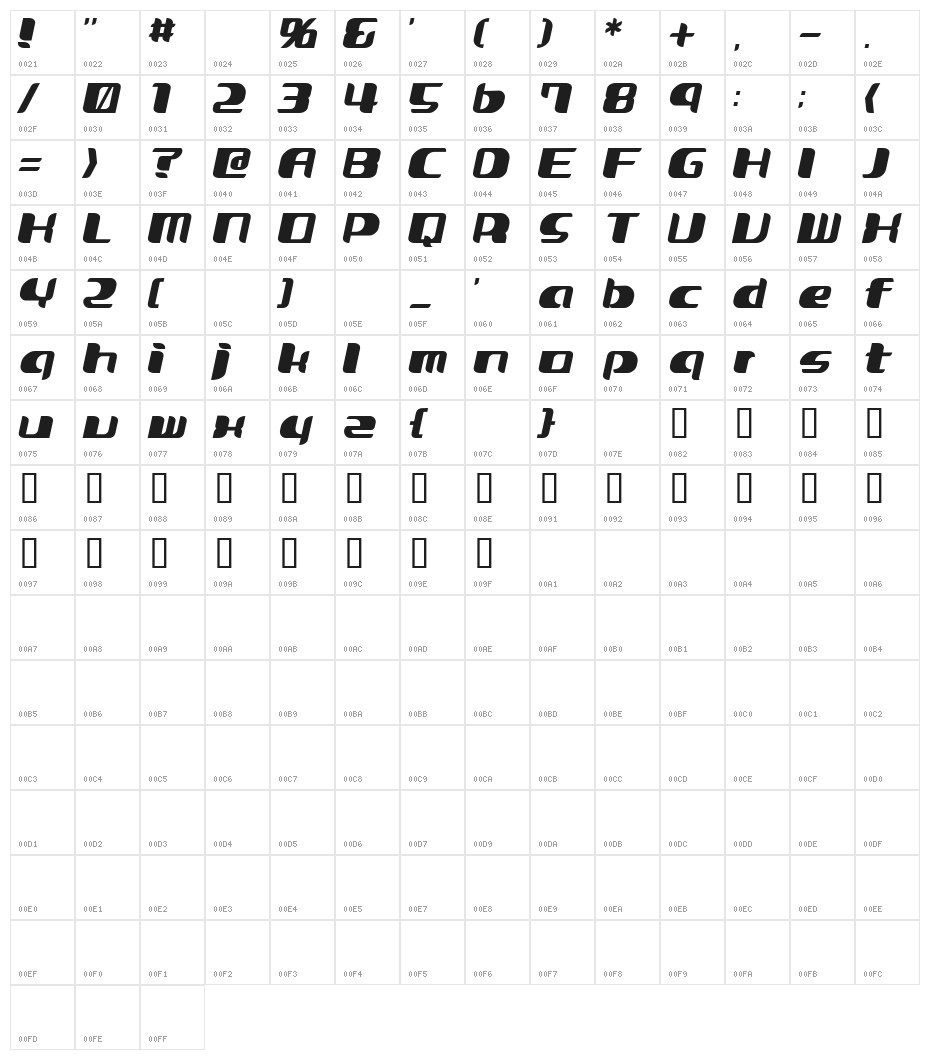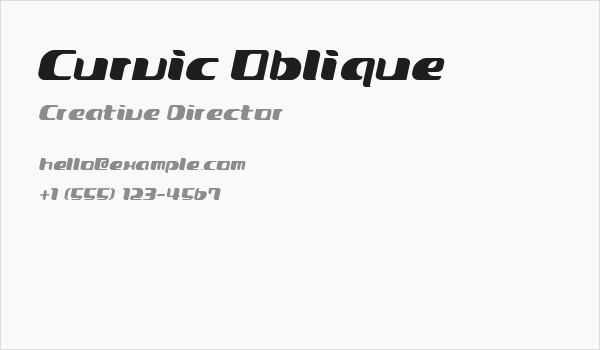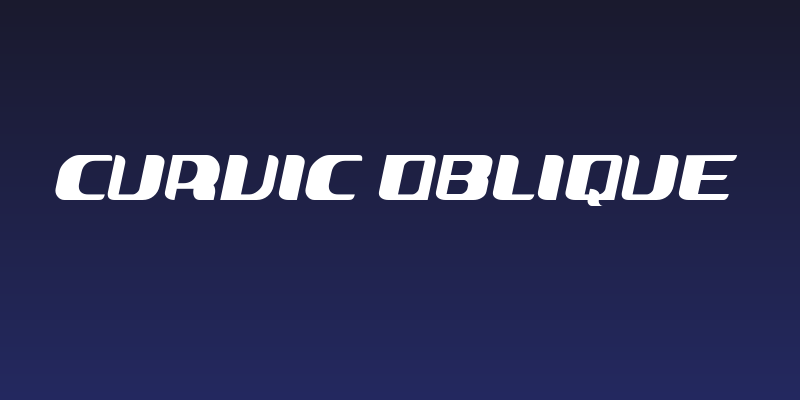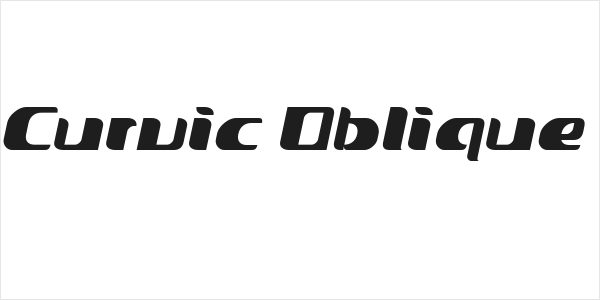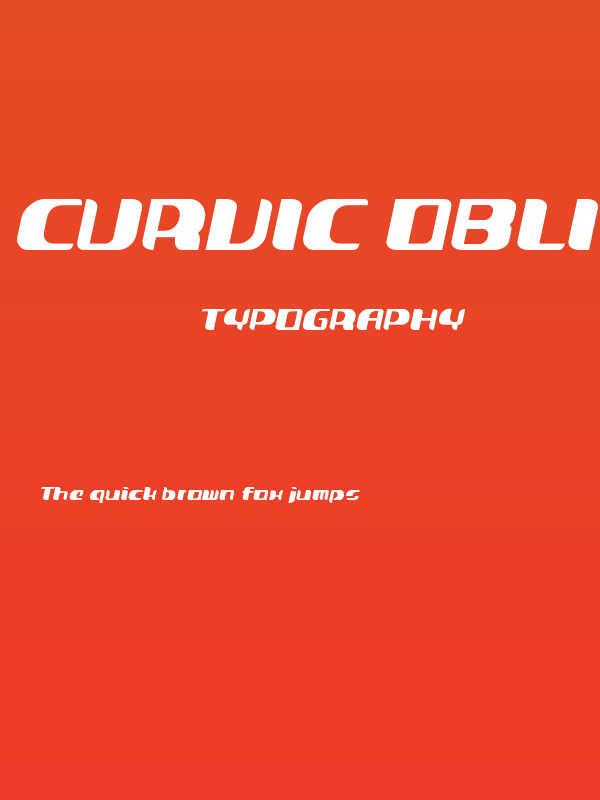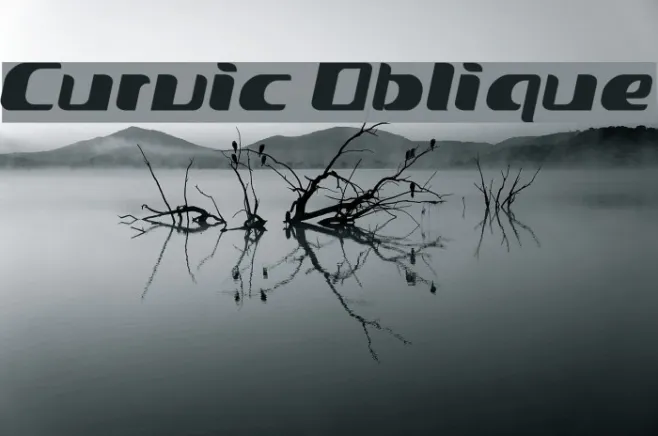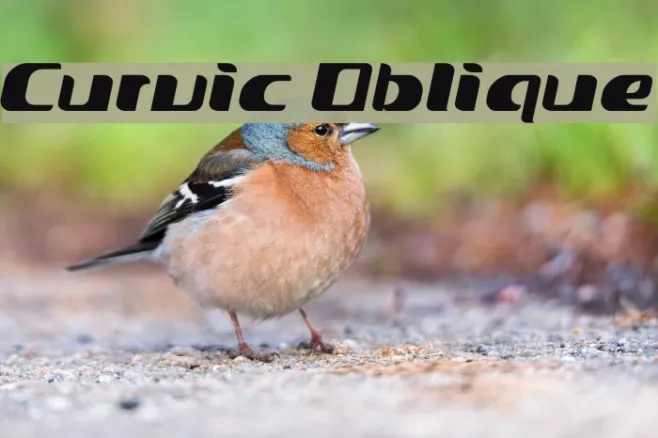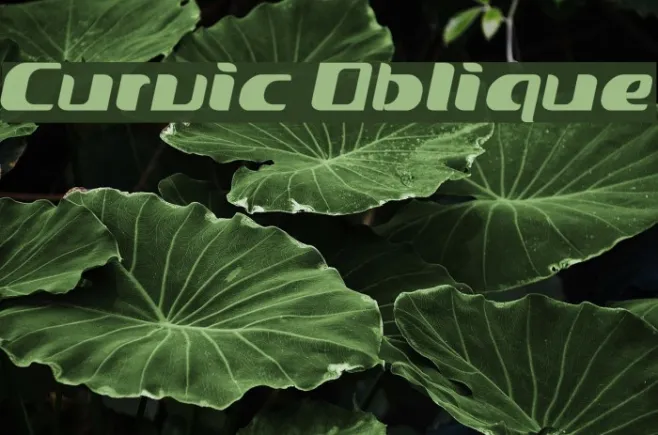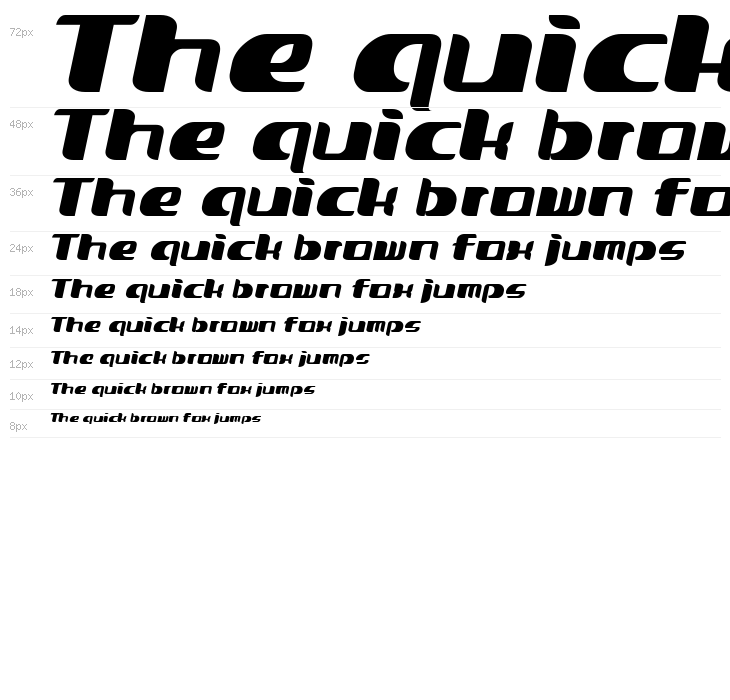
Curvic Oblique Font
Curvic Oblique Description
This font features a dynamic and modern oblique style, characterized by its bold and rounded letterforms. The characters exhibit a forward-leaning slant, giving a sense of motion and energy. The strokes are thick and consistent, providing a strong visual impact. The rounded edges soften the overall appearance, making it approachable yet assertive. The numerals and special characters maintain the same stylistic approach, ensuring uniformity across all glyphs. This font is well-suited for applications that require a contemporary and bold aesthetic.
| Proposed Projects | Ideal for sports branding, dynamic advertising, modern posters, and tech-related projects. |